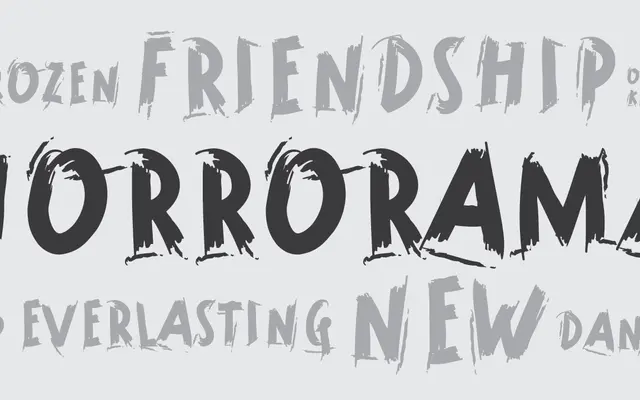
Horrorama
A single-weight brush display face by Dušan Jelesijević with extended Latin and Cyrillic support, designed for expressive, hand-made aesthetics.
Released in 2009 by Tour de Force, Horrorama is a brush-drawn display typeface with an intentionally rough, hand-made character. It covers 384 glyphs across extended Latin and Cyrillic scripts, supporting over 100 languages. Ligature support and its loose, expressive strokes make it best suited to horror-themed, editorial or decorative contexts.
Classified by the foundry as Hand-made; the typeface uses expressive brush strokes with an irregular, hand-drawn quality suited to display and decorative use.